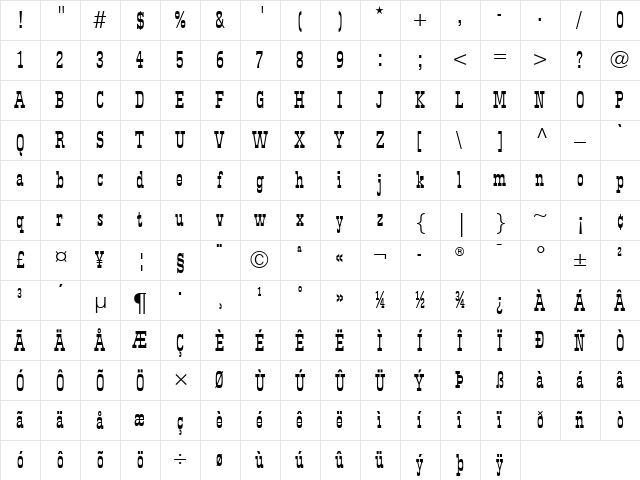
Westside LT Regular Regular
Design Context for Westside LT Regular Typeface
Westside LT Regular takes a measured approach to typography — its balanced proportions and neutral character make it a reliable workhorse for both digital and print work. Its slender proportions lend an understated elegance to any composition.